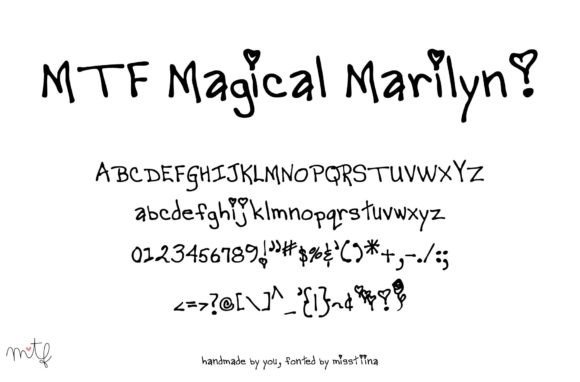
Magical Marilyn Font
About Magical Marilyn Font
Magical Marilyn is more than just a font; it’s a whimsical and fun handwritten typeface that has the power to make your products shine! Whether you’re working on product packaging, children-related projects, girly designs, journals, stationery, or anything alike, Magical Marilyn adds a touch of magic and playfulness to your creations.
The charm of Magical Marilyn lies in its whimsical nature. The characters dance along the baseline with a playful vibe, creating a sense of joy and delight. This font is like a sprinkle of fairy dust on your designs, turning them into enchanting pieces that capture the imagination.
One of the standout features of Magical Marilyn is its versatility. This font is designed to complement a wide range of projects, making it a fantastic choice for anyone looking to infuse a sense of fun and whimsy into their designs. From children’s books to product labels, Magical Marilyn brings a lighthearted touch that resonates with audiences of all ages.
If you’re working on product packaging, Magical Marilyn becomes your secret weapon for creating standout designs. Its playful yet legible style ensures that your brand message is communicated with a dose of magic. This font is crafted to make your products stand out on the shelf and create a memorable visual experience for your customers.
For children-related projects, journals, and stationery, Magical Marilyn adds a delightful touch. Its handwritten quality creates a personal and friendly feel, making it perfect for capturing the essence of childhood joy. This font encourages creativity and imagination, making it an ideal choice for projects that cater to a younger audience.
In the world of fonts, Magical Marilyn is a celebration of whimsy and fun. It’s not just about letters; it’s about creating an experience that brings joy to those who encounter it. So, whether you’re a designer, a business owner, or someone embarking on a creative project, let Magical Marilyn be your go-to font for infusing magic into every design.